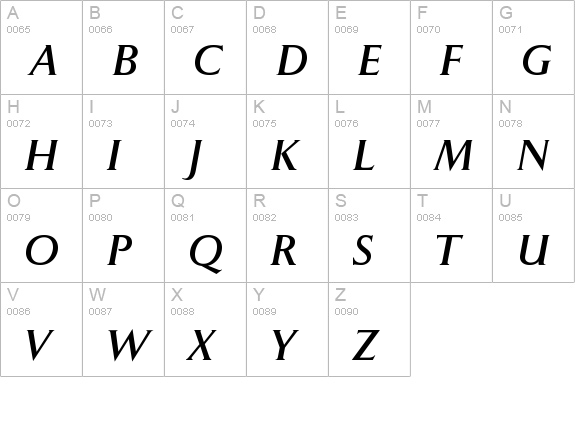
Pompei Std Italic is a distinctive, italic variant in the Pompei typeface family \xE2\x80\x94 well suited to design and typography projects.
The Pompei Std Italic font exudes elegance and sophistication with its sleek, slanted design. Its graceful curves and stylish letterforms make it perfect for adding a touch of class to any project. Whether you're designing a wedding invitation, a logo, or a brochure, this font is sure to elevate your work to the next level. What's even better is that Pompei Std Italic font is completely free to download at FontsMarket.com. You can easily obtain this exquisite typeface without any cost, making it a highly accessible option for all your design needs. Don't miss out on the opportunity to enhance your projects with this stunning font - download Pompei Std Italic today and let your creativity soar!